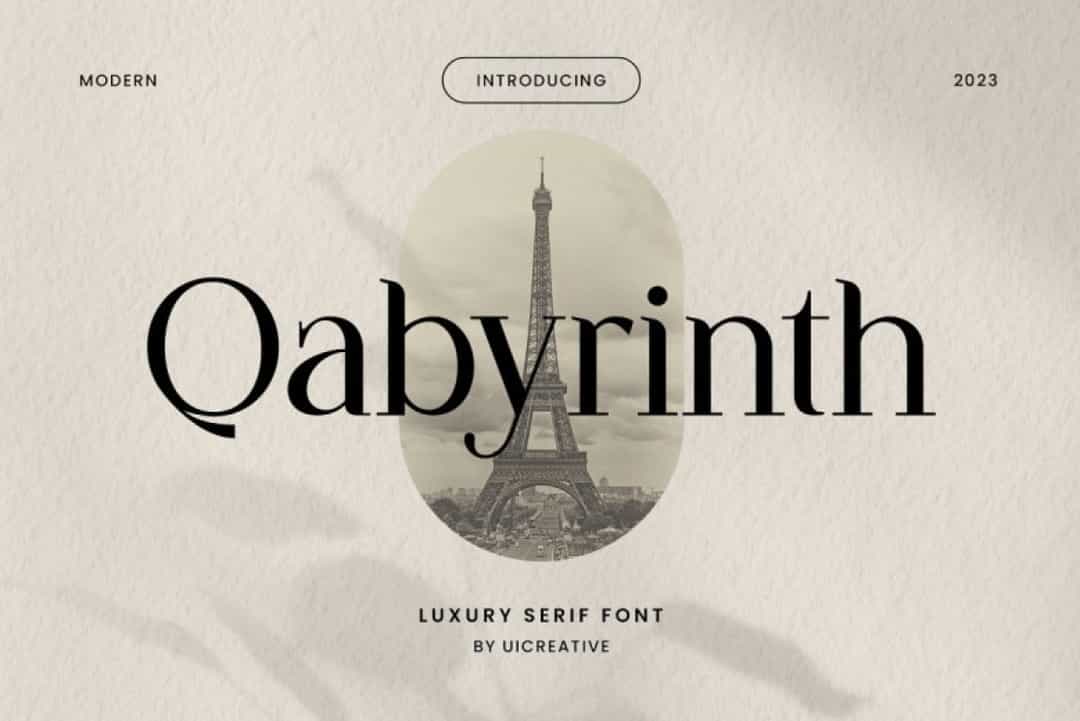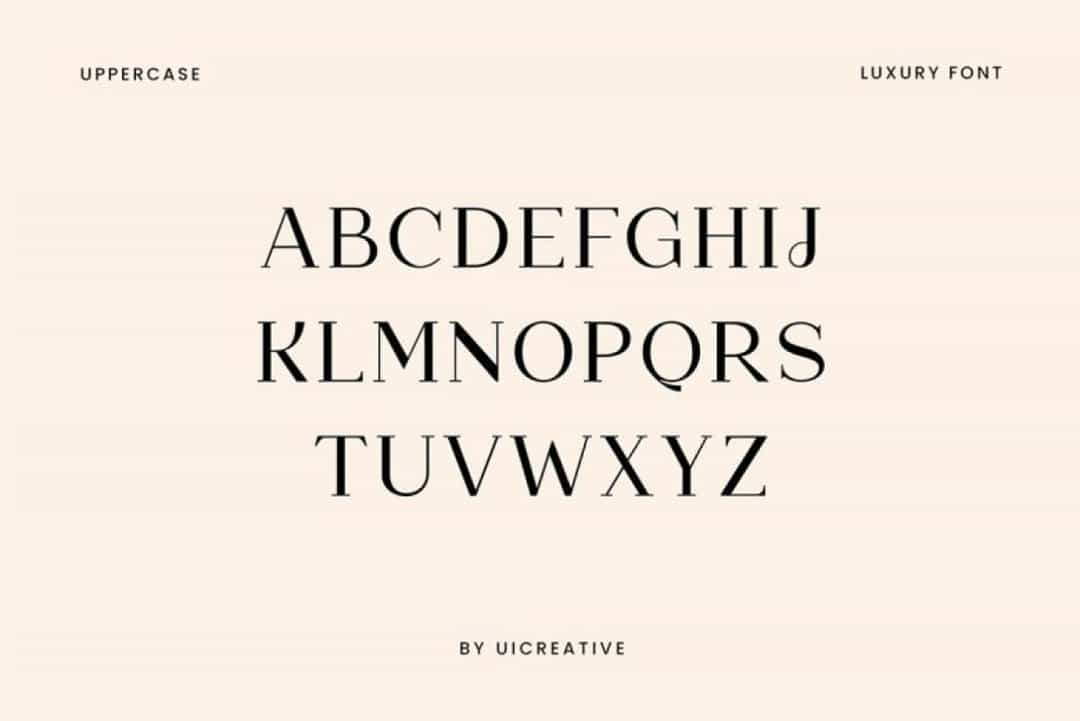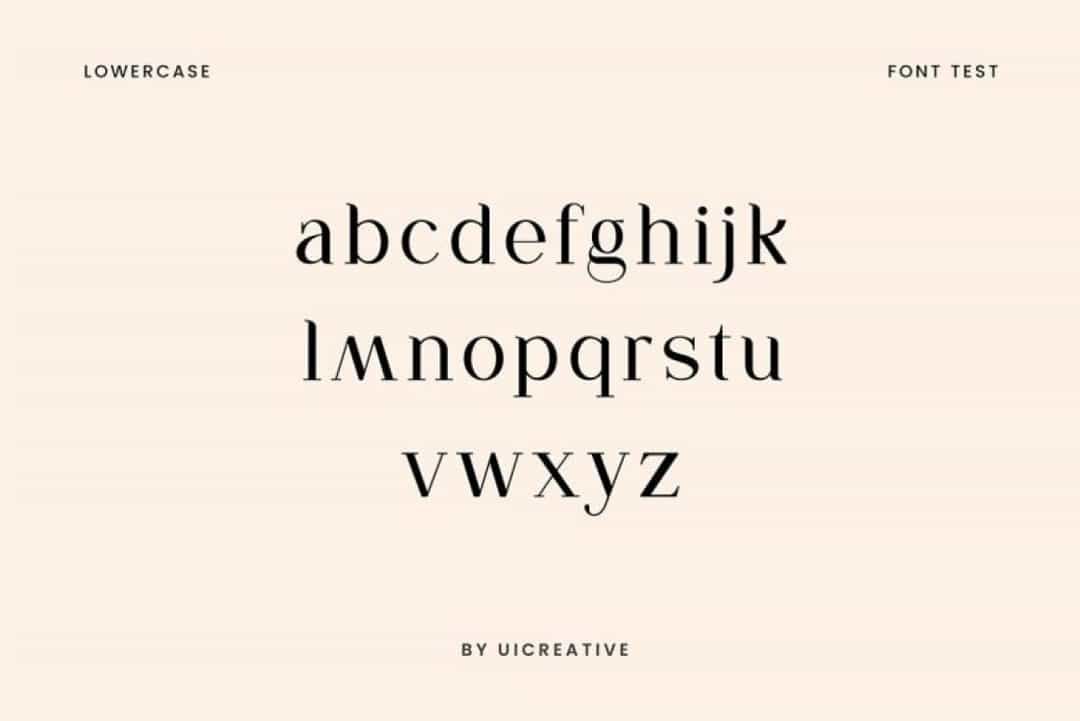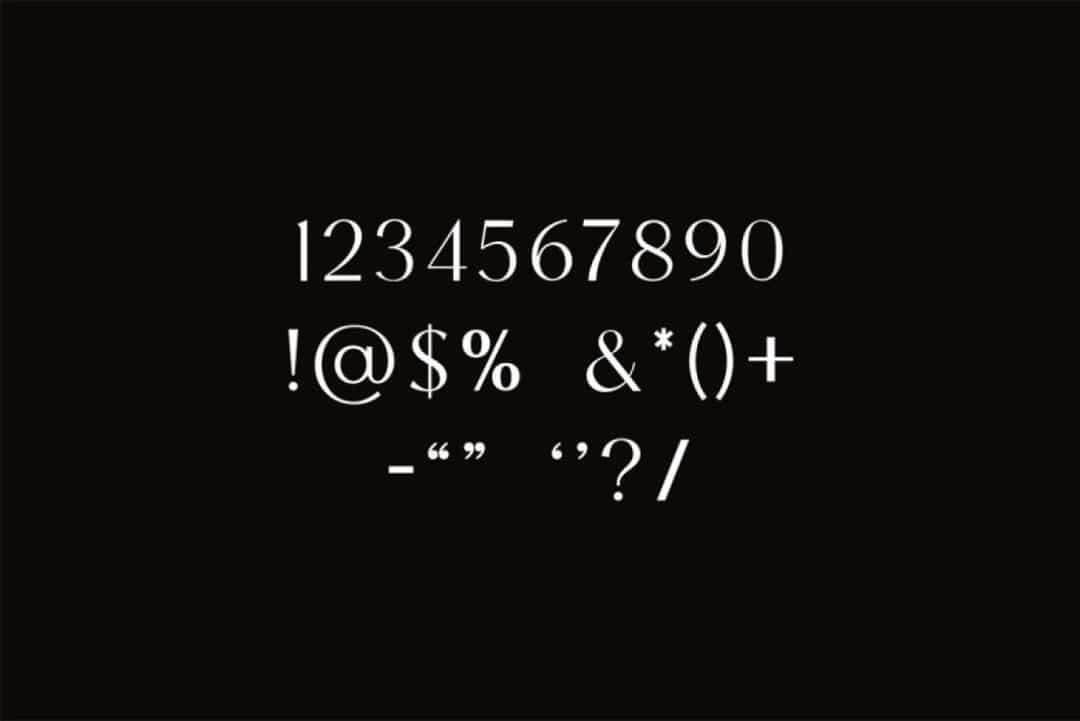
Qabyrinth Font is our brand new product and offers luxurious serif typeface that is elegant, sophisticated and contemporary – the ideal font to be used for logos, signatures, stationery wedding invitations, typography quotes from book or magazine covers, headers for websites as well as clothing packaging design branding purposes and much more!